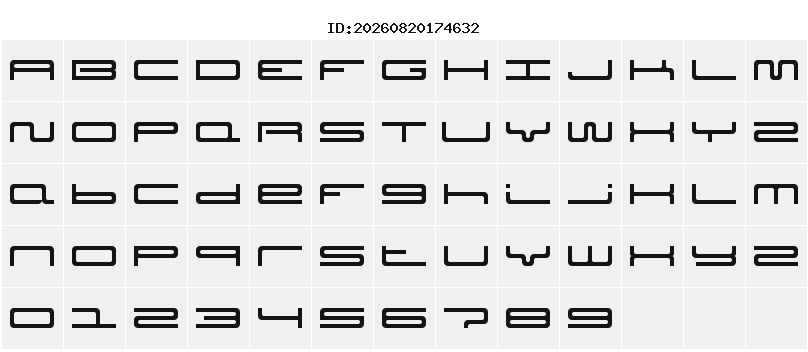
Septober Preview
• Font Name: Septober
• Full Font Name: Septober Regular
• Designer: Jamie Place
• Description: ‚ÄúSeptober‚Äù was built with FontStruct
About Septober.ttf
Septober.ttf is a modern, elegant sans-serif font designed for ultimate readability and visual harmony. Perfect for branding, headlines, web design, and print materials.